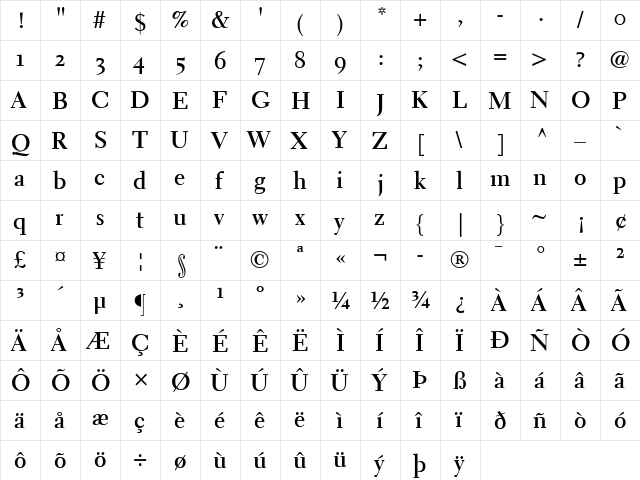
Electra LH RegularOsF Bold
Design Context for Electra LH RegularOsF Typeface
Electra LH RegularOsF is a composed and adaptable typeface that performs quietly and consistently across a wide range of design contexts. The heavy weight commands attention and anchors typographic hierarchies.